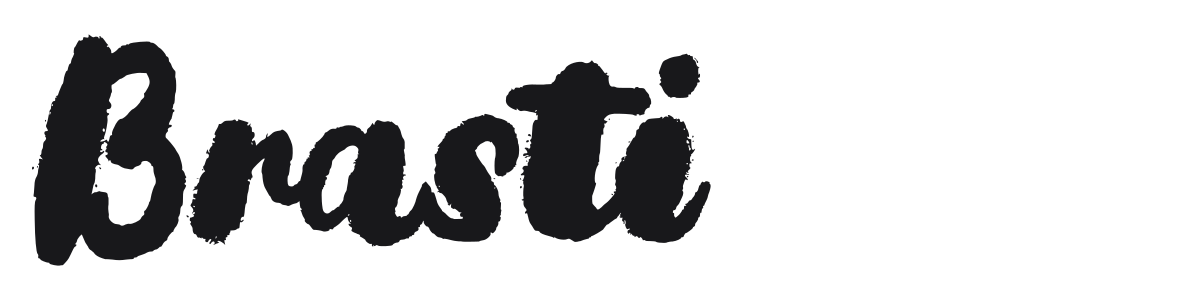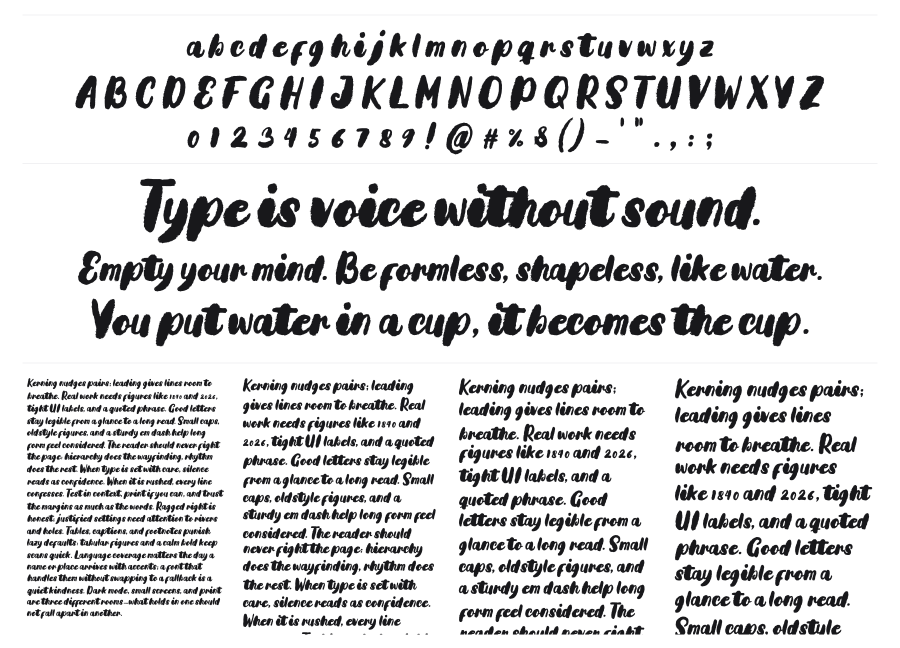
Brasti
by Bonjourtype · Website
Brasti is a heavy, textured brush script with raw, ink-loaded energy and rough fibrous edges that make every word feel freshly hand-lettered. Thick downstrokes contrast sharply with thin connective hairlines, and the slightly erratic baseline keeps the whole thing feeling alive rather than mechanical. It brings immediate warmth and boldness to packaging, posters, and brand identities that want a human touch.